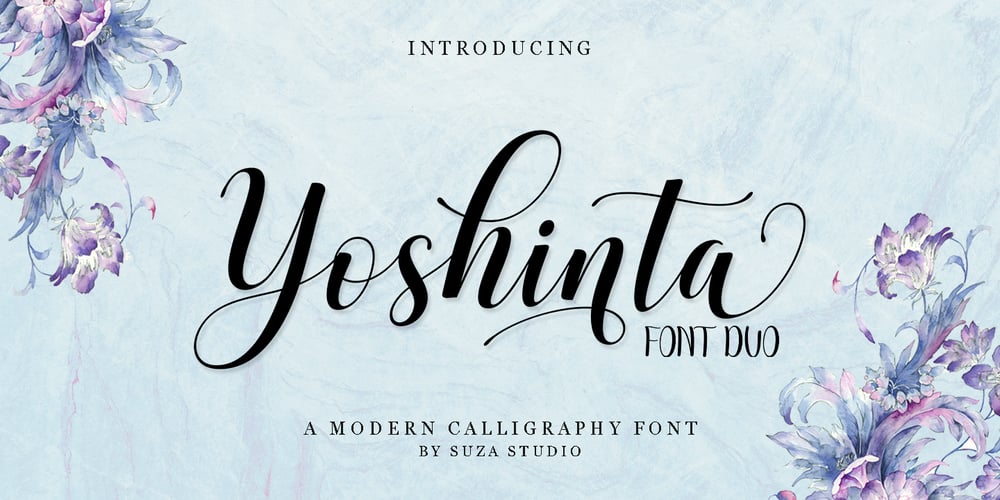
Yoshinta Font Family was designed by Zikrillah and published by Suza Studio. Yoshinta contains 2 styles and family package options. Yoshinta Script Font Duo is a new modern script font with an irregular base line. Trendy and feminine style. Yoshinta Script looks beautiful in wedding invitations, thank you cards, quotes, greeting cards, logos, business cards, and more. Perfect for use in ink or watercolours. Including beginning and end letters, alternatives and support for many languages.To enable the OpenType Stylistic alternative, you need a program that supports OpenType features such as Adobe Illustrator CS, Adobe Indesign & CorelDraw X6-X7, Microsoft Word 2010 or newer versions. There are several additional ways to access alternatives / swashes, using Character Maps (Windows), Nexus Fonts (Windows), Font Books (Mac) or software programs such as PopChar (for Windows and Mac).